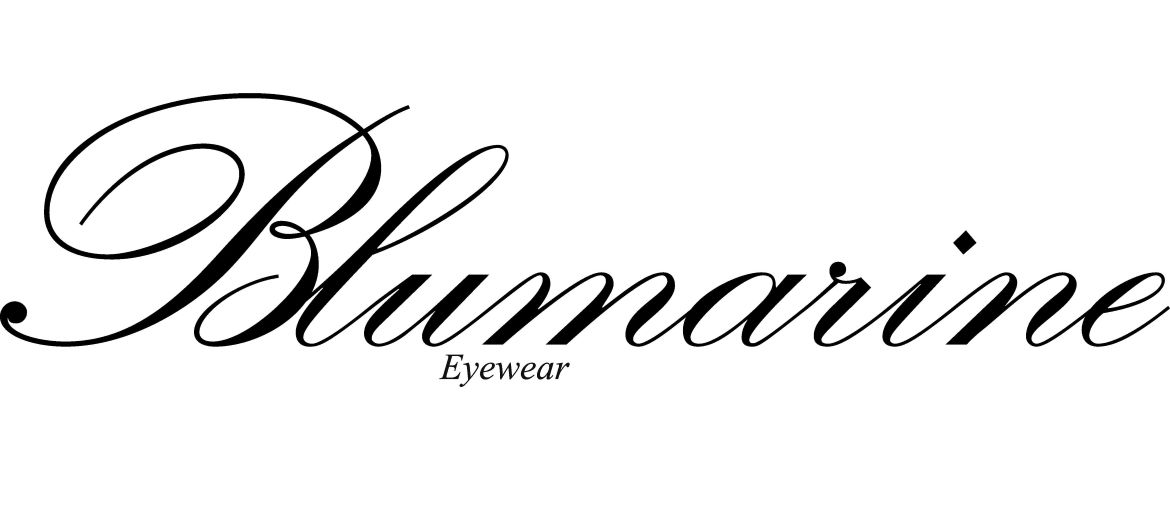
Blumarine Font
What Font is Blumarine?
The Blumarine Font used in the brand’s logo closely resembles Kuenstler Script Pro Medium, a premium script typeface known for its elegant curves and refined, flowing style. Its graceful letterforms perfectly reflect the luxury and sophistication of the Blumarine brand. For those who wish to achieve a similar look, there is a free alternative font available that captures the same elegant script feel.
About Blumarine
Blumarine is an Italian luxury fashion house founded in 1977 by Anna Molinari and Gianpaolo Tarabini in Carpi, Italy. The brand is celebrated for its feminine, romantic, and glamorous aesthetic—often defined by soft fabrics, floral details, and pastel tones. The flowing script of the Blumarine logo mirrors this essence of elegance and sensuality, making it an iconic symbol of Italian high fashion that blends timeless charm with modern sophistication.